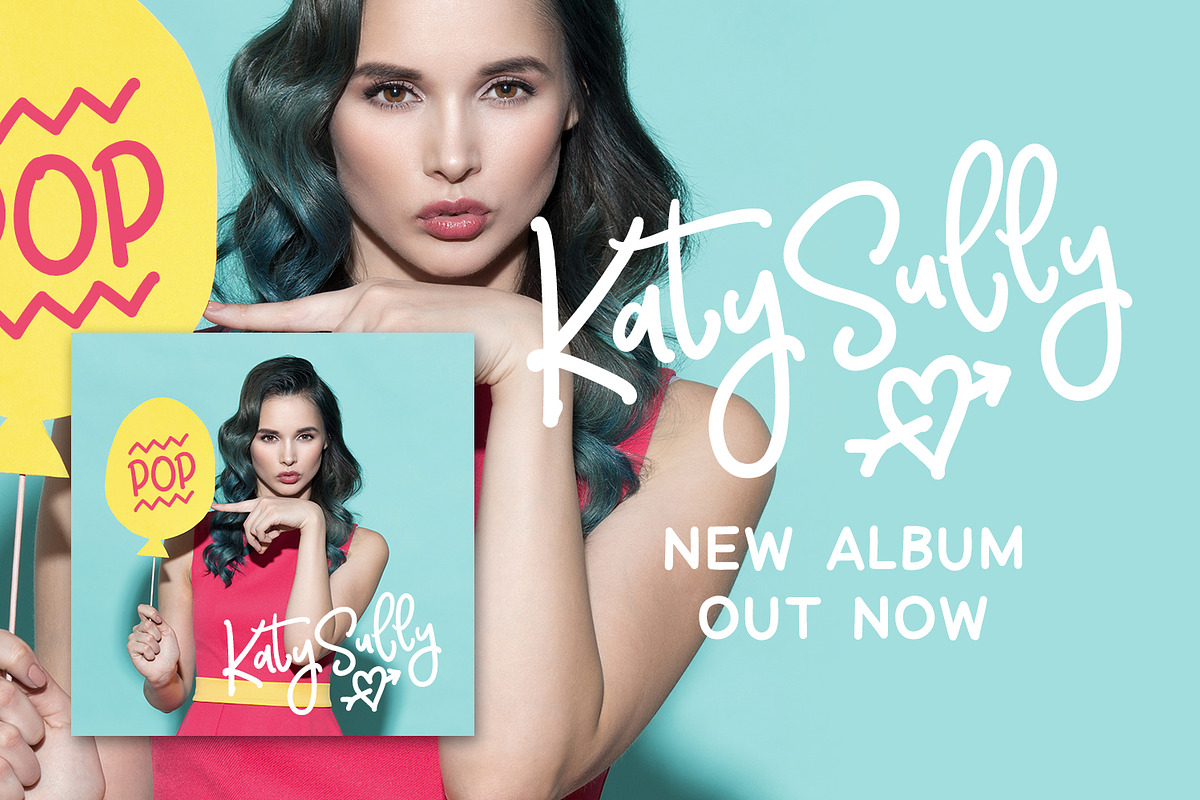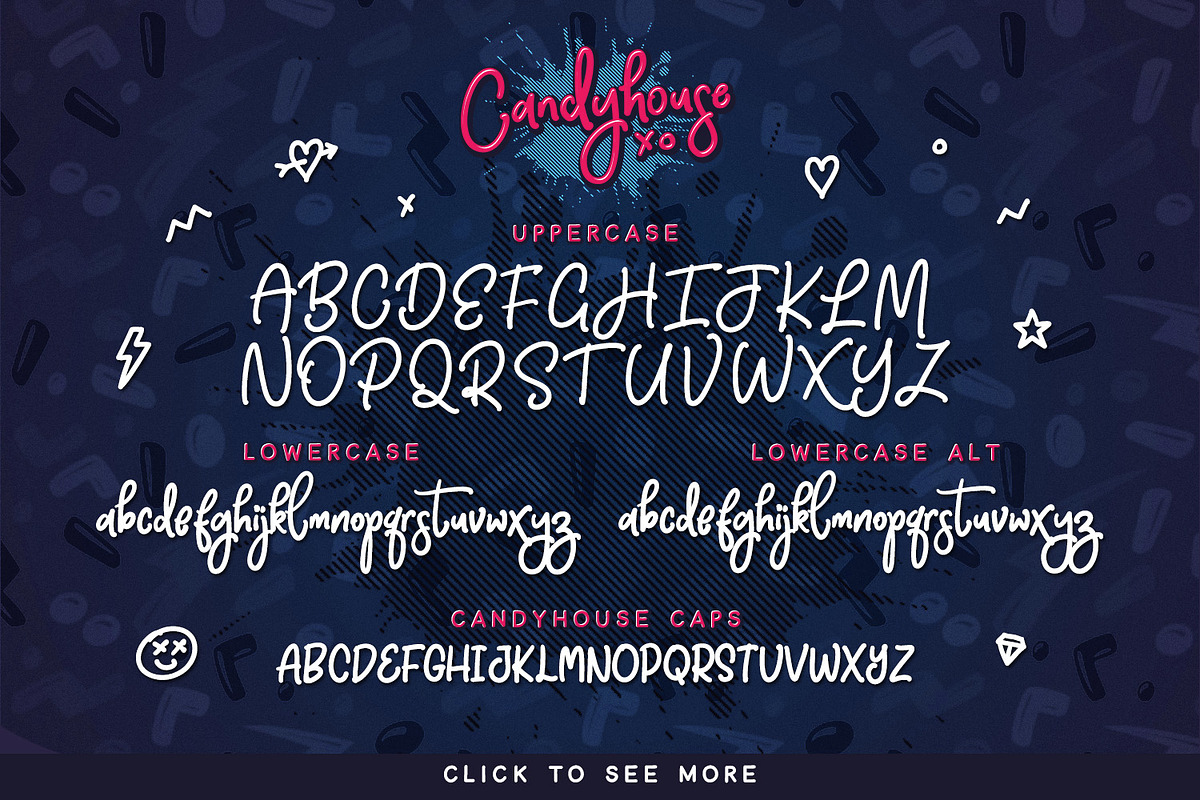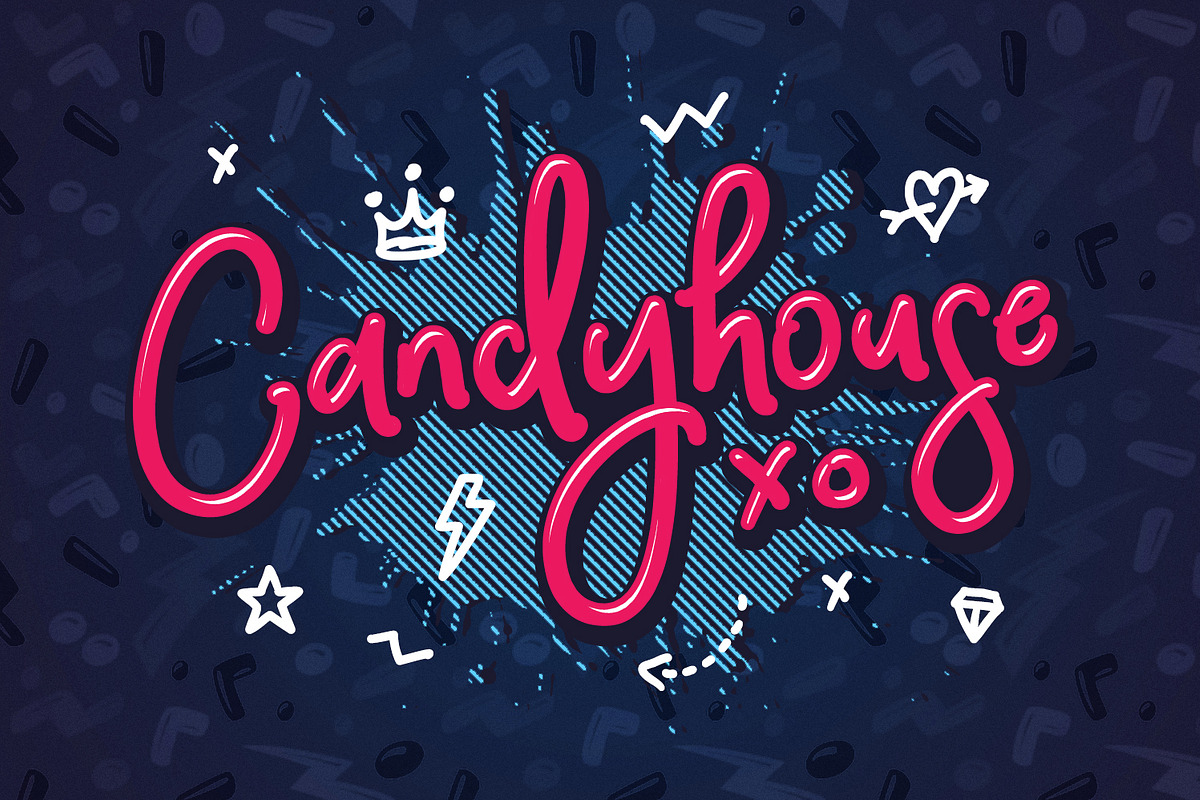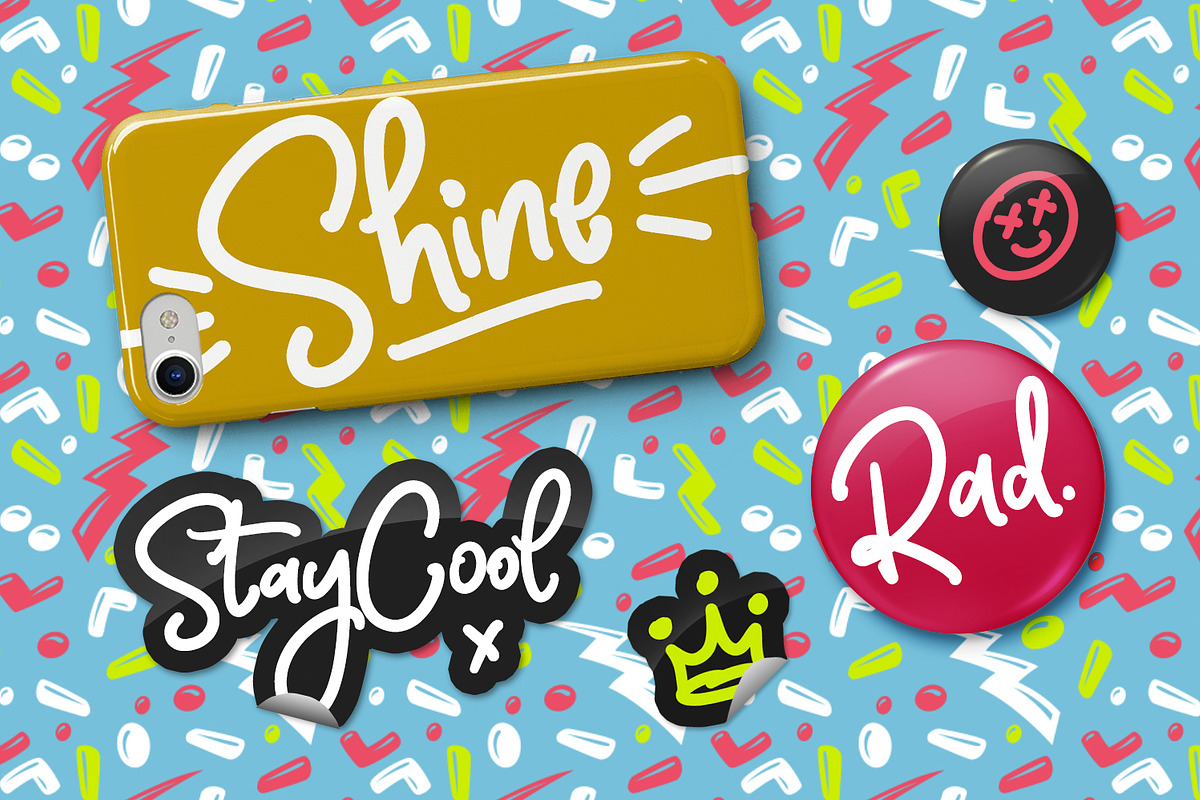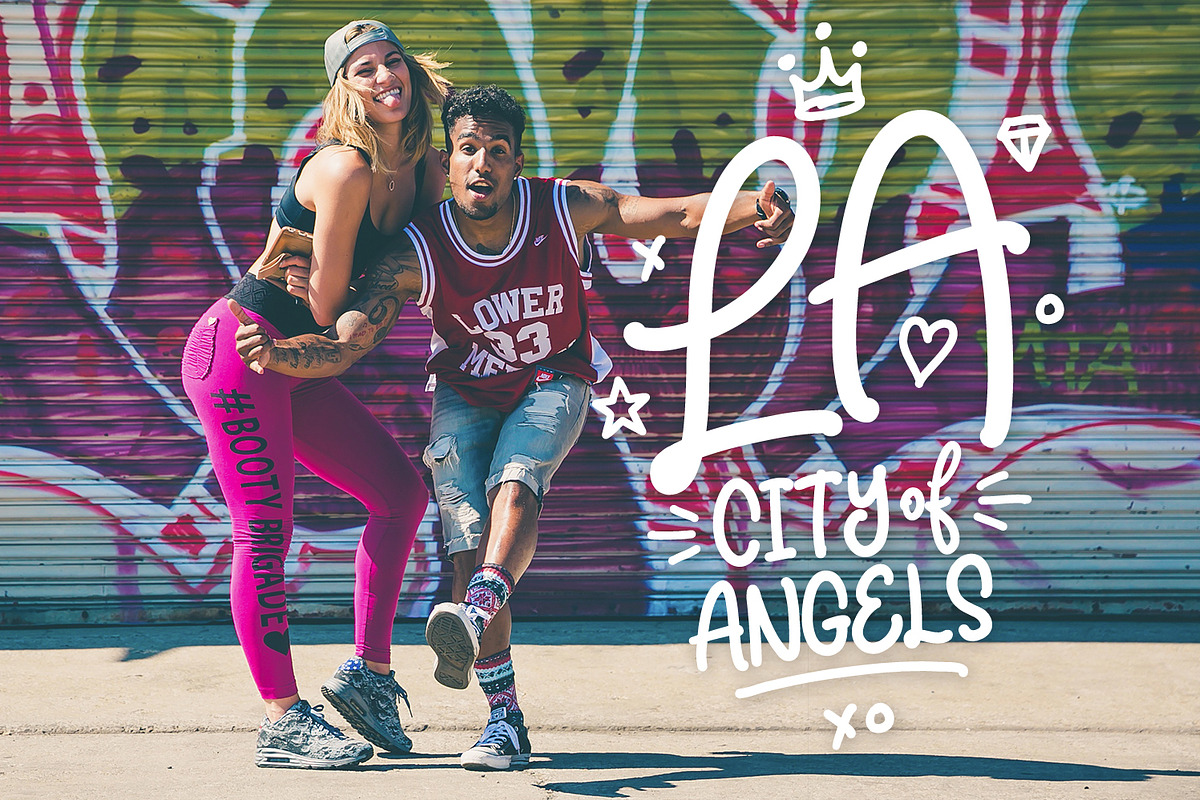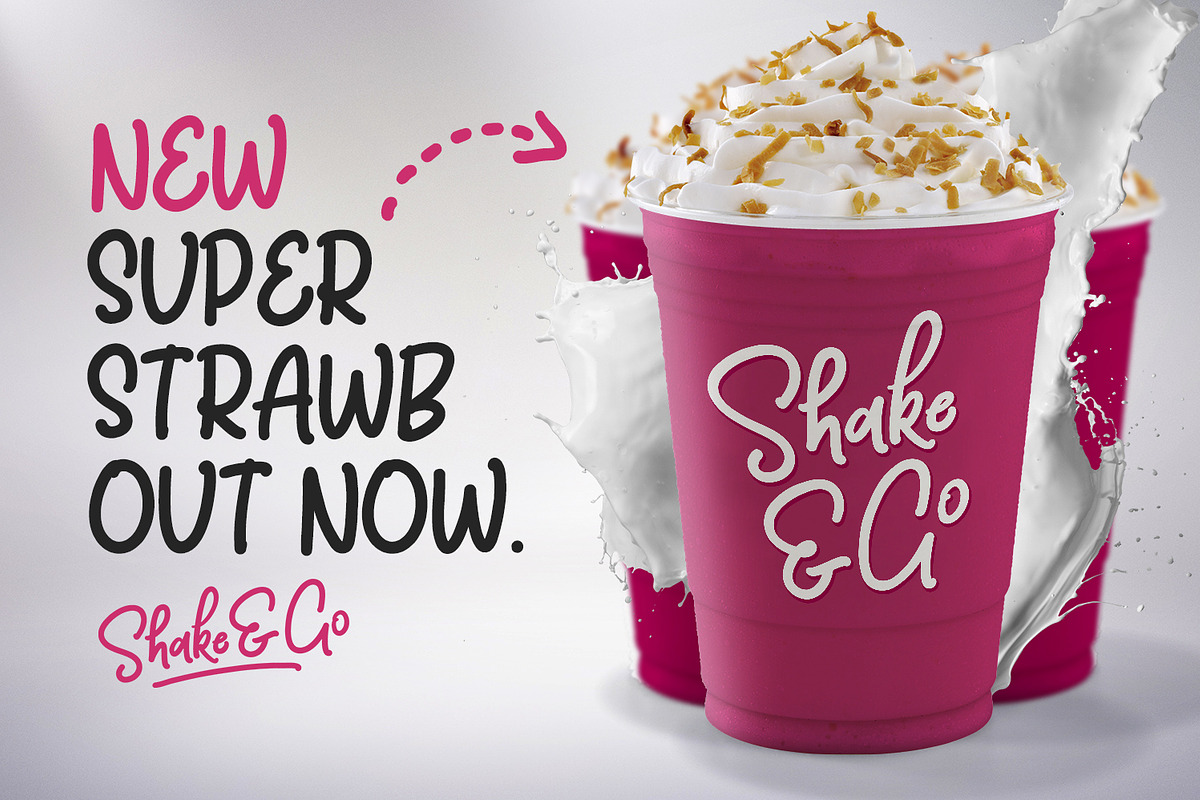
Candyhouse Font
Candyhouse Font by Sam Parrett is a font selected for branding, posters, packaging, typography.
- Have you ever received the not-so-helpful design feedback "make it pop"?
- Also includes numerals and a large range of punctuation.
- This bonus font includes 30 hand-drawn doodles, swashes and arrows which are the perfect companion to Candyhouse when you need that extra pe
- The great thing about Candyhouse is that it's not just a script font; it's crammed full of extra goodies such as a complete set of alternate
- Candyhouse • A hand drawn script font containing upper & lowercase characters, numerals and a large range of punctuation.
- Candyhouse Alt • This is a second version of Candyhouse, with a completely new set of lowercase characters.
- Candyhouse Caps • An all-caps font containing uppercase-only characters, perfect for supporting text to compliment the Candyhouse script fon
- Also includes numerals and a large range of punctuation.
Why Candyhouse Font is worth a look
Candyhouse Font by Sam Parrett fits naturally into Branding, posters, packaging, typography.